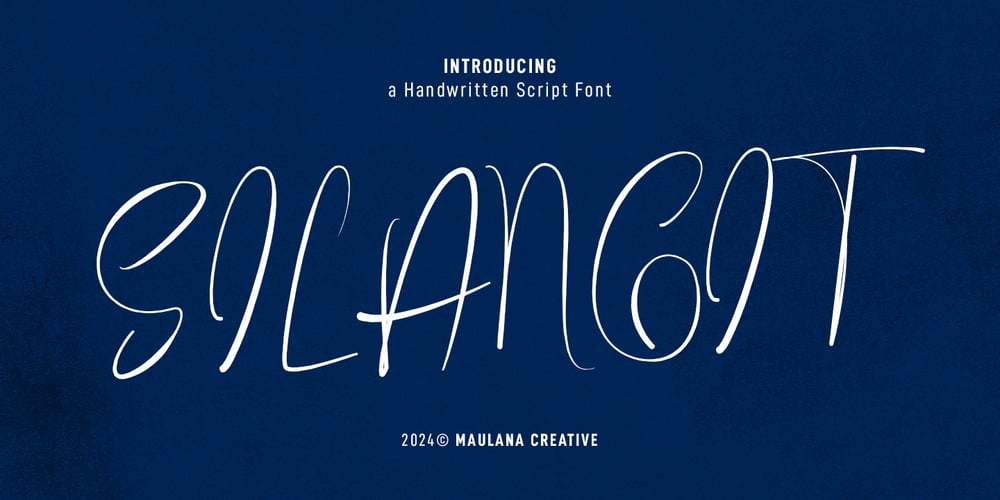
MC Silangit
MC Silangit font
MC Silangit Font Family was designed by Gilang Maulana and published by Maulana Creative. MC Silangit contains 1 styles and family package options. Give your designs an authentic brush handcrafted feel. “ Silangit” is perfectly suited to signature, stationery, logo, typography quotes, website header, branding and more.